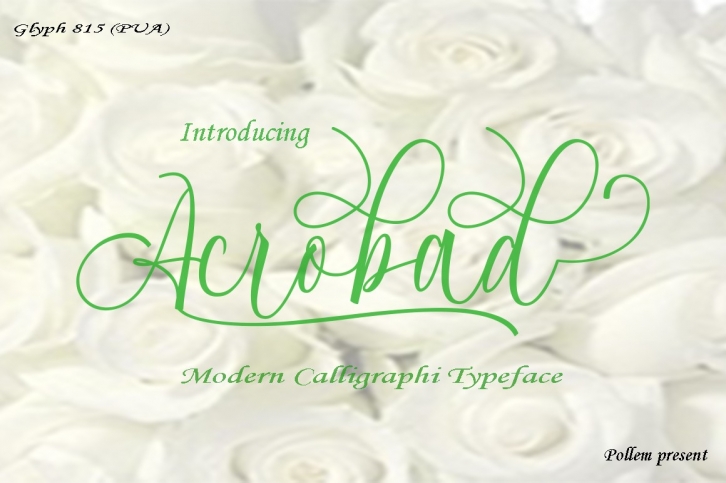
Acrobad Script is a beautiful font that was designed by pollem Co. It's a great choice for designers and creatives who need such a font. It was released on June 1, 2017 and the file size is 14.30 MB. Acrobad Script may give a more youthful, expressive and casual look to your project. It is a very beautiful, refined, elegant, and high-quality font.